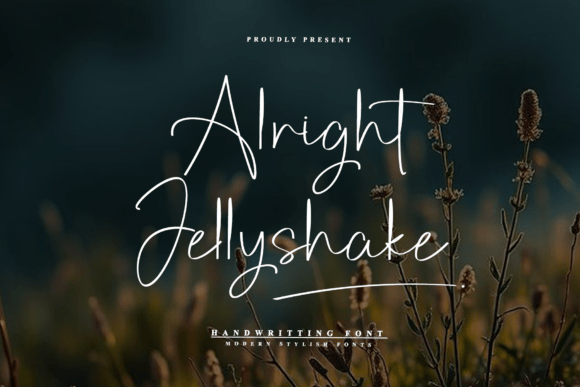
Unlock the Charm of Your Designs with Alright Jellyshake Font
Have you ever sat down with a blank page, a cup of coffee, and a dash of creativity, only to have the perfect font suddenly pop into your mind? That’s what happened to many designers who discovered the Alright Jellyshake Font. This lovely and timeless handwritten font has been a game-changer for those looking to add a personal touch to their logos, branding, and quotes.
What makes Alright Jellyshake Font truly special is its unique and beautiful touch on every letter. This font is not just a choice, but an opportunity to breathe life into your designs. Whether you’re a seasoned designer or a budding creative, Alright Jellyshake Font is a valuable addition to your toolkit. Its versatility and charm make it an ideal choice for designers looking to stand out from the crowd.
Alright Jellyshake Font Key Features
- Font Family: Alright Jellyshake, a unique and playful script font designed to add a touch of whimsy to your designs.
- Character Set: Supports a wide range of characters, including uppercase and lowercase letters, numerals, punctuation, and special characters.
- Size: The font is available in a single weight, making it easy to use in various design applications.
- Resolution: Optimized for high-resolution displays, ensuring crisp and clear text rendering.
- Unique Characteristics: Features a handwritten, cursive style with a relaxed, casual feel, perfect for creating eye-catching headlines, titles, and social media graphics.
Alright Jellyshake Font Review
Alright, let’s dive into this one. The Alright Jellyshake Font is a quirky, fun font that’s perfect for capturing a carefree summer vibe ✨. It’s playful, laid-back, and has a certain je ne sais quoi that makes it hard to resist. The font is available in a range of weights, from light to bold, which makes it versatile enough to use in a variety of contexts.
- Customizable: The Alright Jellyshake Font comes with a range of customization options, including ligatures, swashes, and ornaments ✨.
- Fun and quirky: The font’s playful personality makes it a great choice for brands that want to stand out and have some fun ✨.
- Great for headings: The Alright Jellyshake Font is particularly well-suited for use in headings and titles, where its bold lines and quirky flair can really shine ✨.
That being said, there are some limitations to consider ⚠️. The font can feel a bit overwhelming if used extensively, and its quirky personality may not be to everyone’s taste. Additionally, the font’s customizability can make it difficult to maintain consistency across different applications.
Overall, I think the Alright Jellyshake Font is a solid choice for brands that want to add some personality to their design. Just be mindful of its limitations, and use it sparingly to avoid overwhelming your audience.
The Alright Jellyshake font is ideal for:
- Casual social media graphics.
- Children’s book illustrations.
Remember to use the font in moderation and balance it with other design elements to avoid overwhelming the viewer.
Alternatives to Alright Jellyshake Font
Great Vibes Font is a playful, handwritten font that works well for informal and creative projects. It’s ideal for use in social media posts, advertising, and branding materials. Compared to Alright Jellyshake Font, Great Vibes Font has a more casual and carefree feel, making it suitable for a wider range of applications.
Alex Brush Font is a elegant, handwritten script that is perfect for luxury brands and high-end designs. It’s ideal for use in invitations, wedding stationery, and other formal materials. Compared to Alright Jellyshake Font, Alex Brush Font has a more refined and sophisticated feel, making it suitable for more formal and elegant projects.
Cowboy Casual Font
Cowboy Casual Font is a rough, handwritten font that works well for rustic and country-themed projects. It’s ideal for use in outdoor gear branding, country music advertising, and other rural-themed materials. Compared to Alright Jellyshake Font, Cowboy Casual Font has a more rugged and weathered feel, making it suitable for projects that require a more down-to-earth tone.